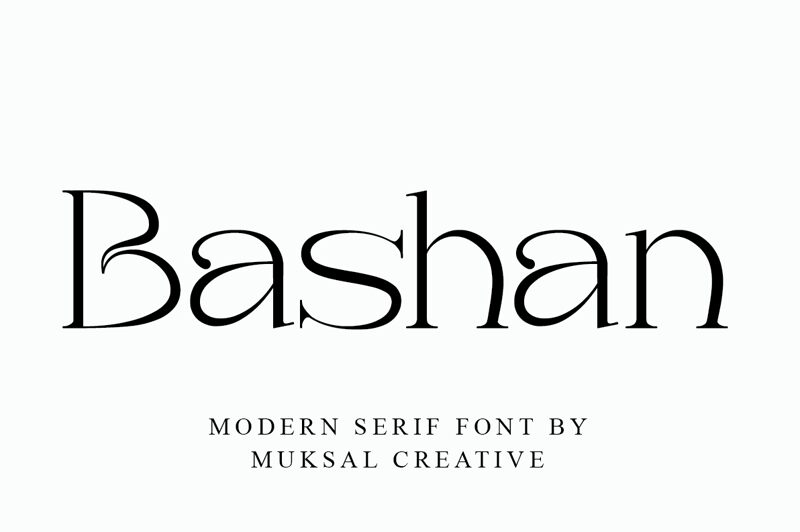
Bashan
Bashan is a light, wide, retro display font designed by Muksal Creative. Perfect for adding a vintage touch to any project, Bashan is ideal for creating logos, headlines, posters and more.